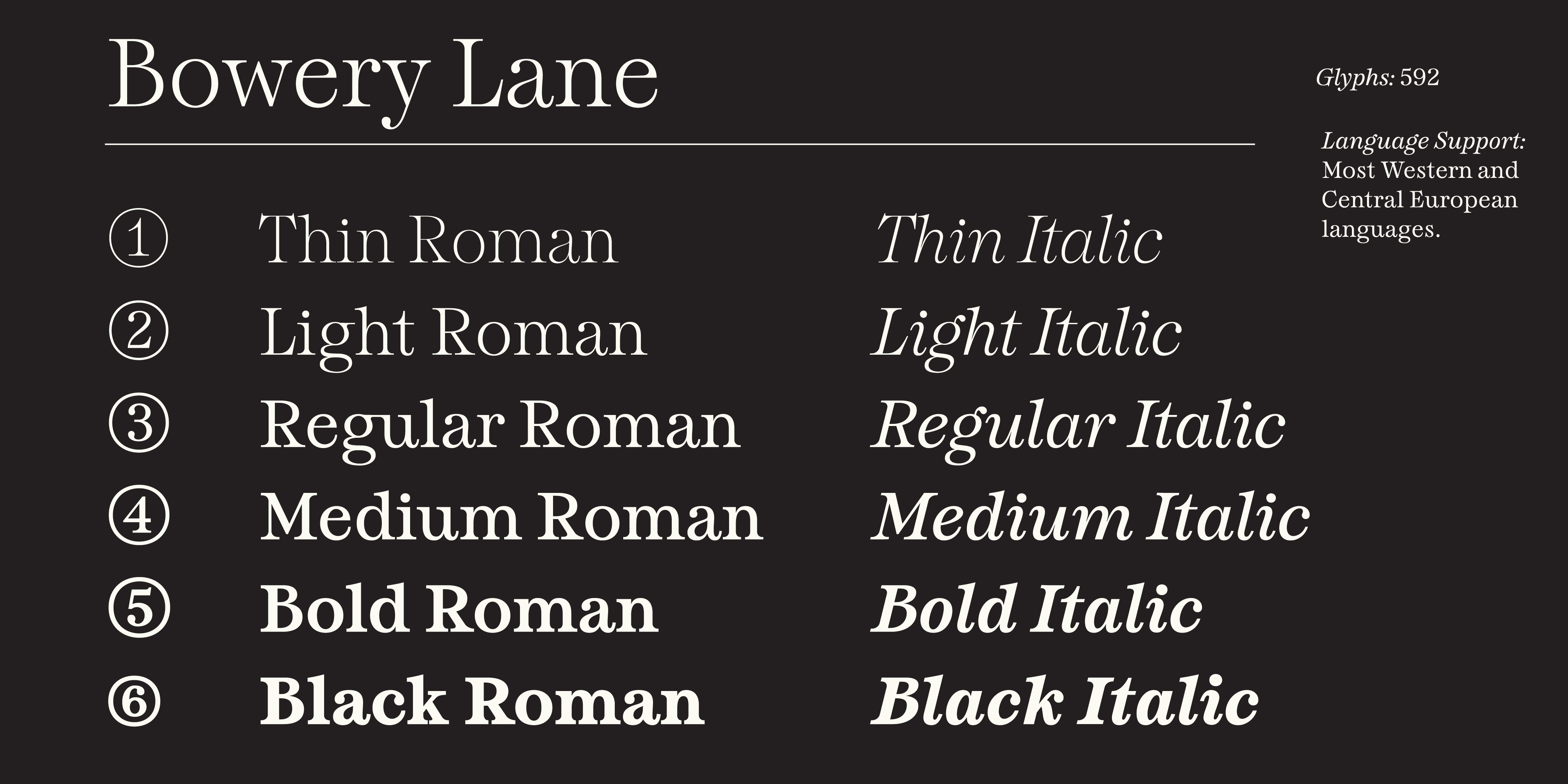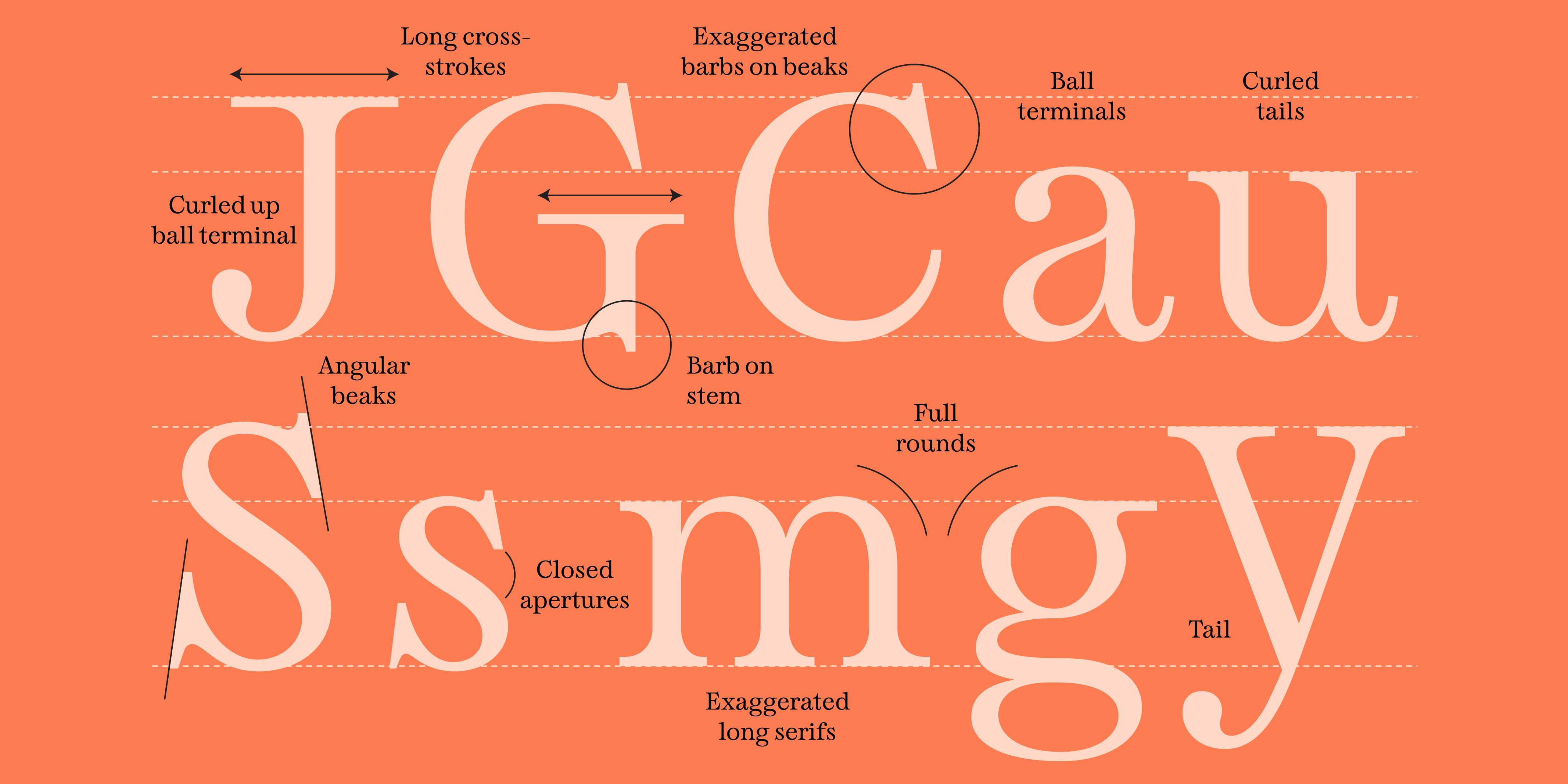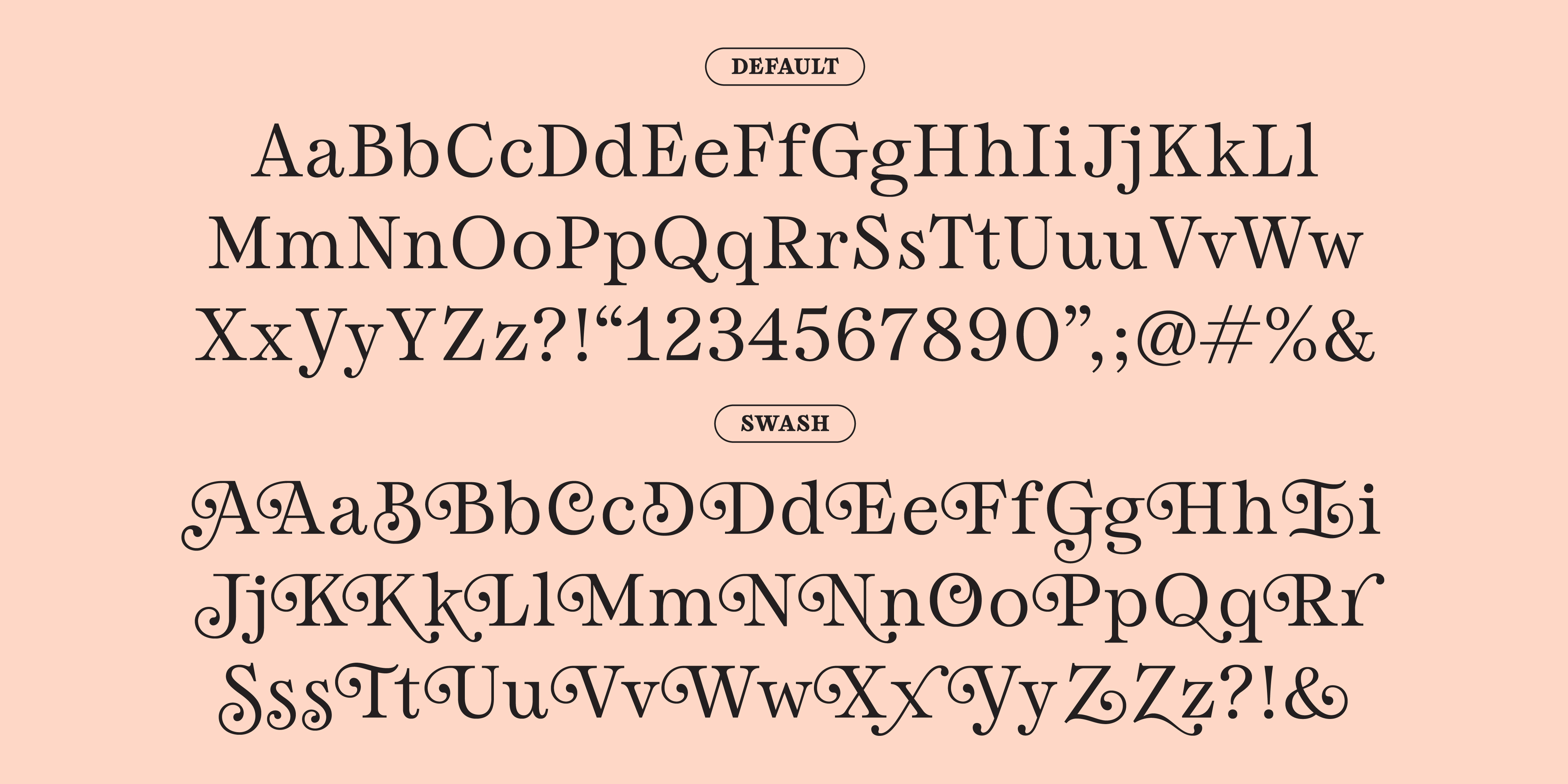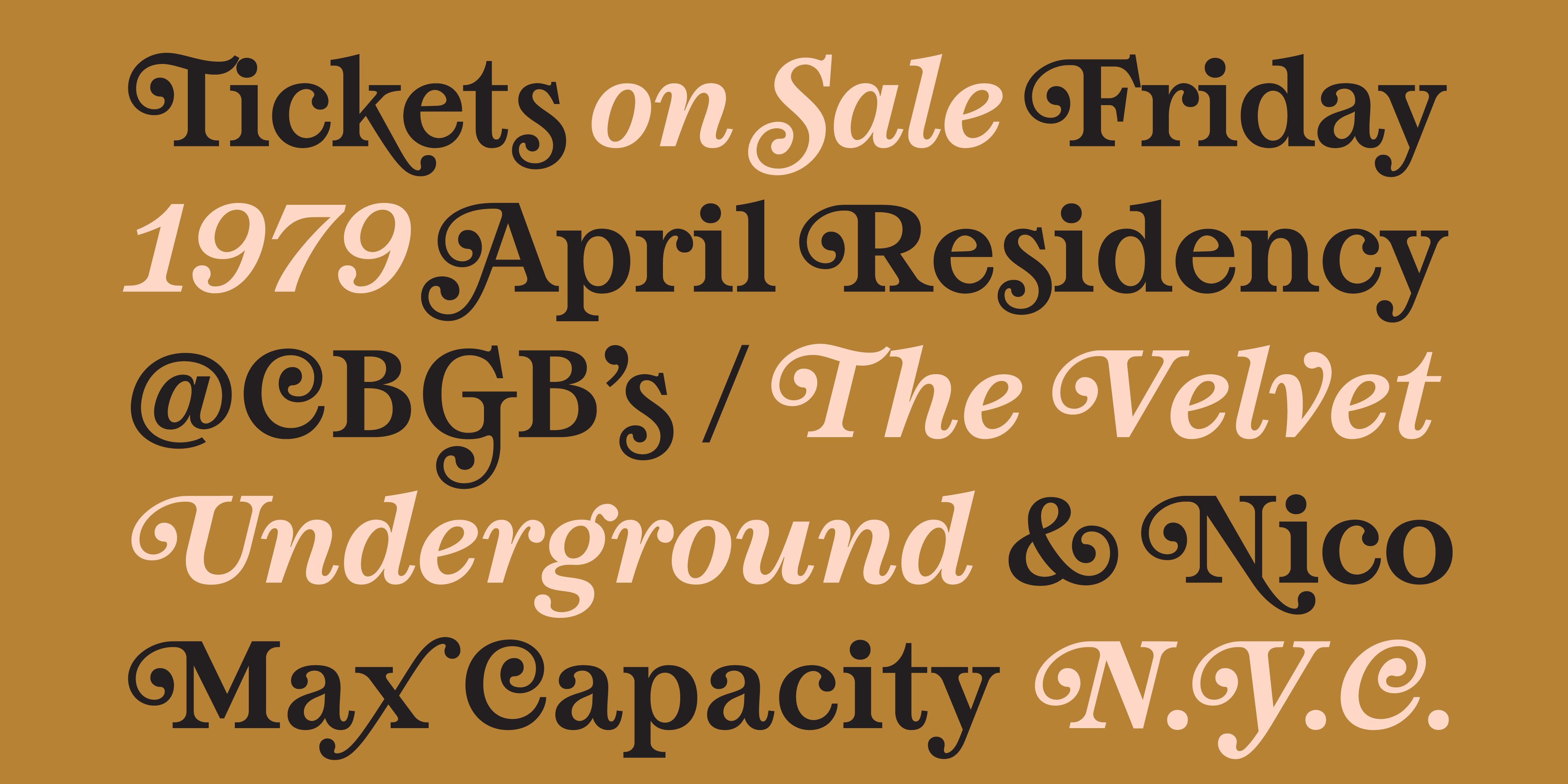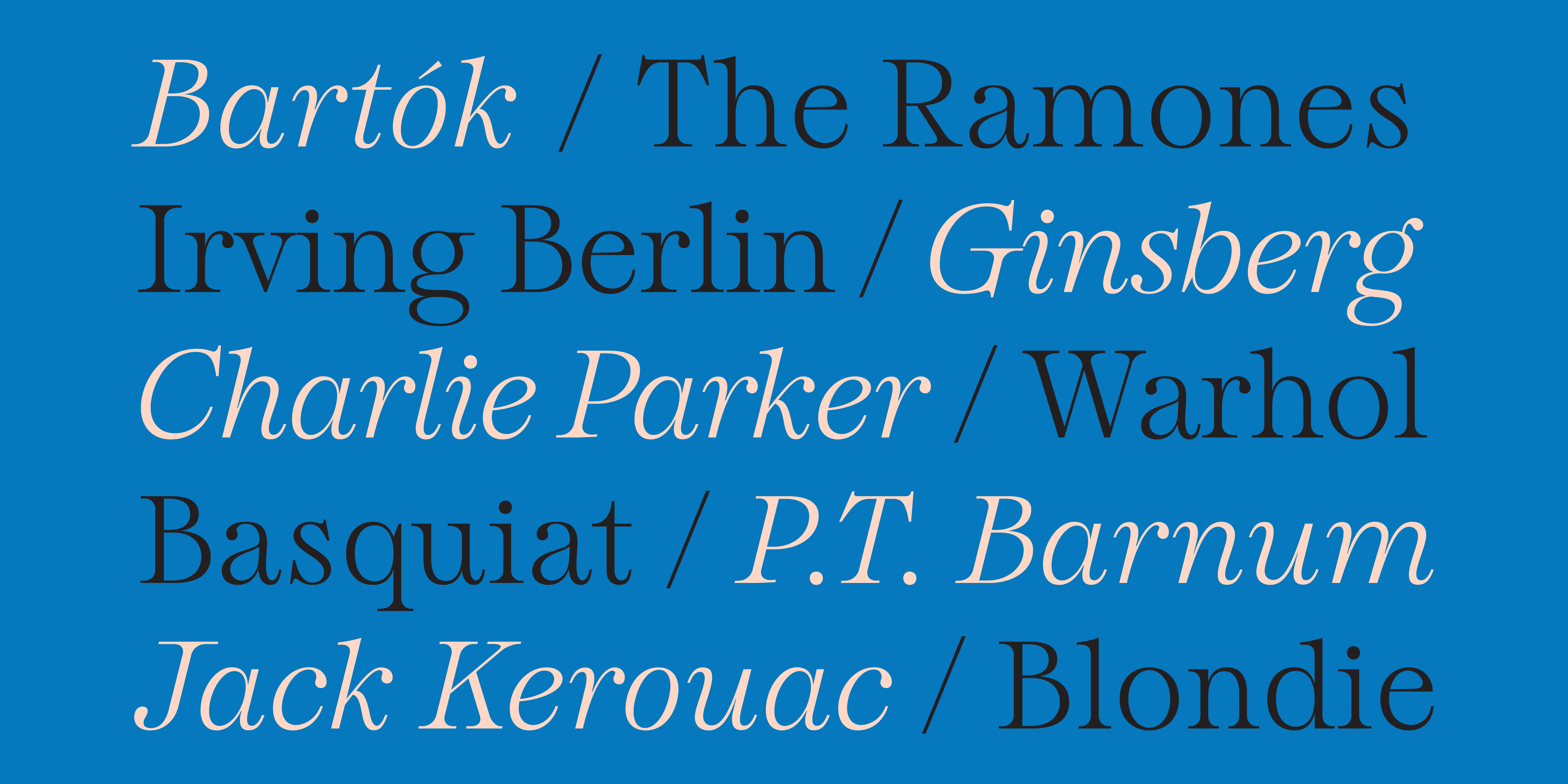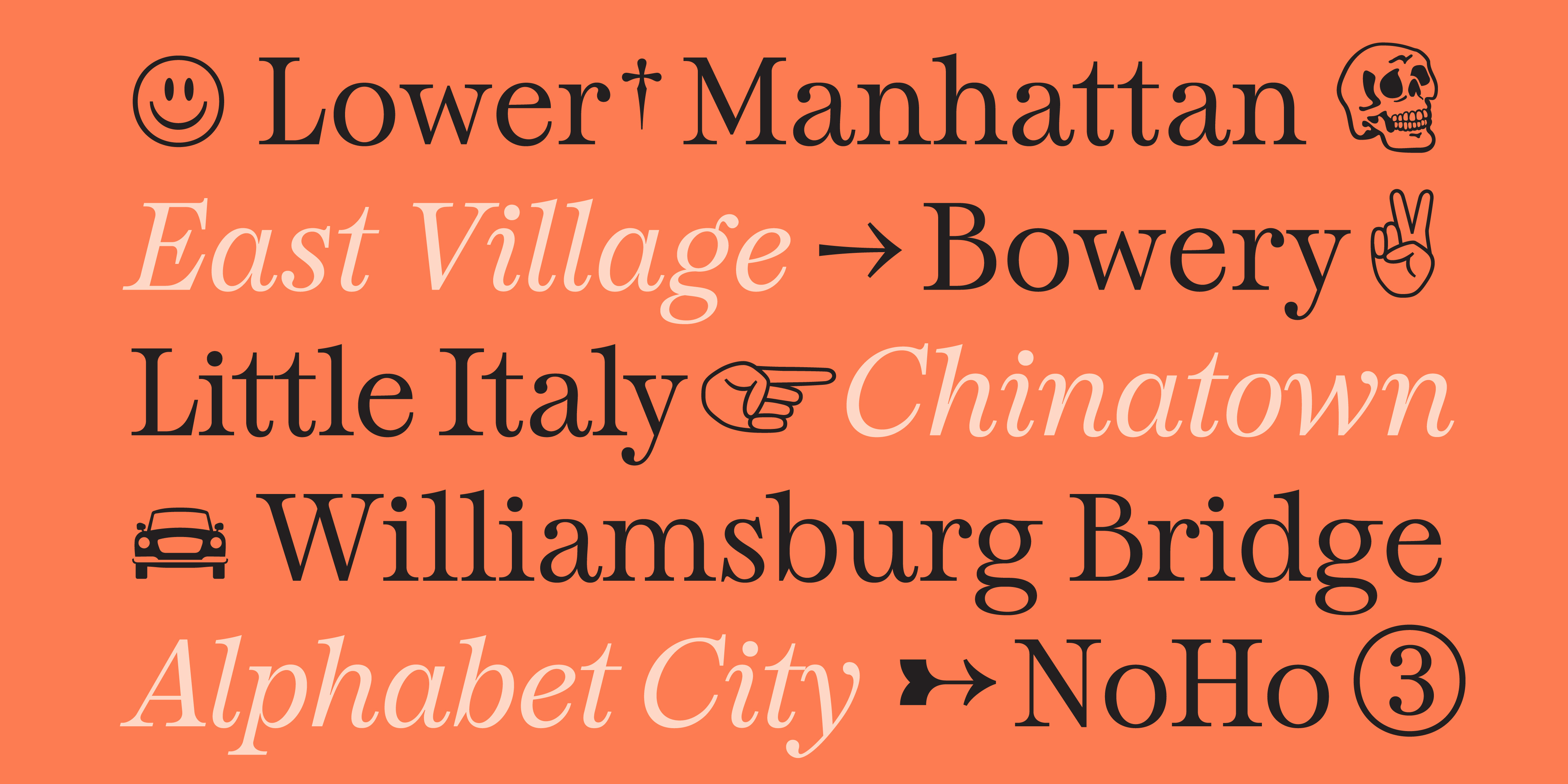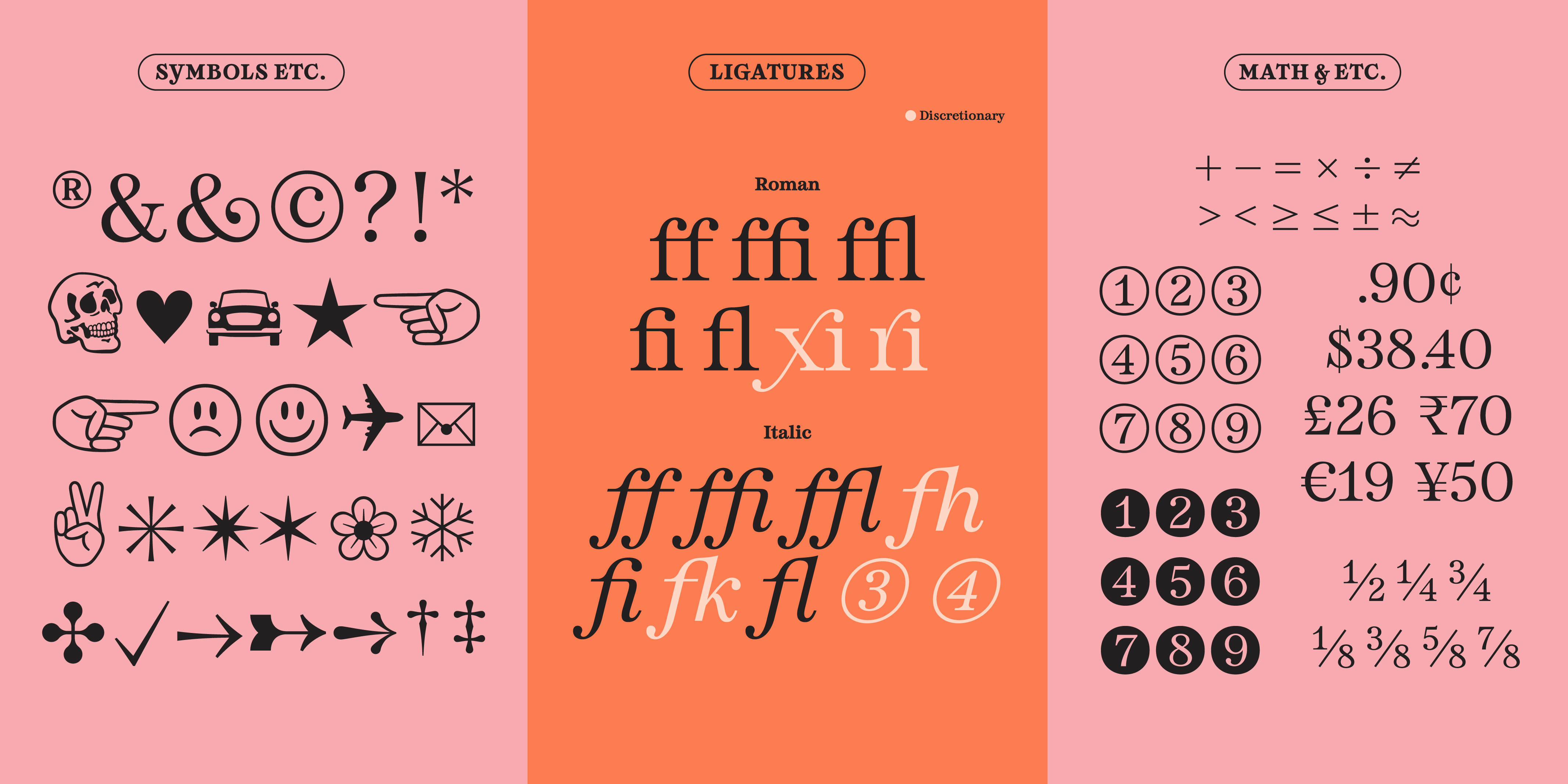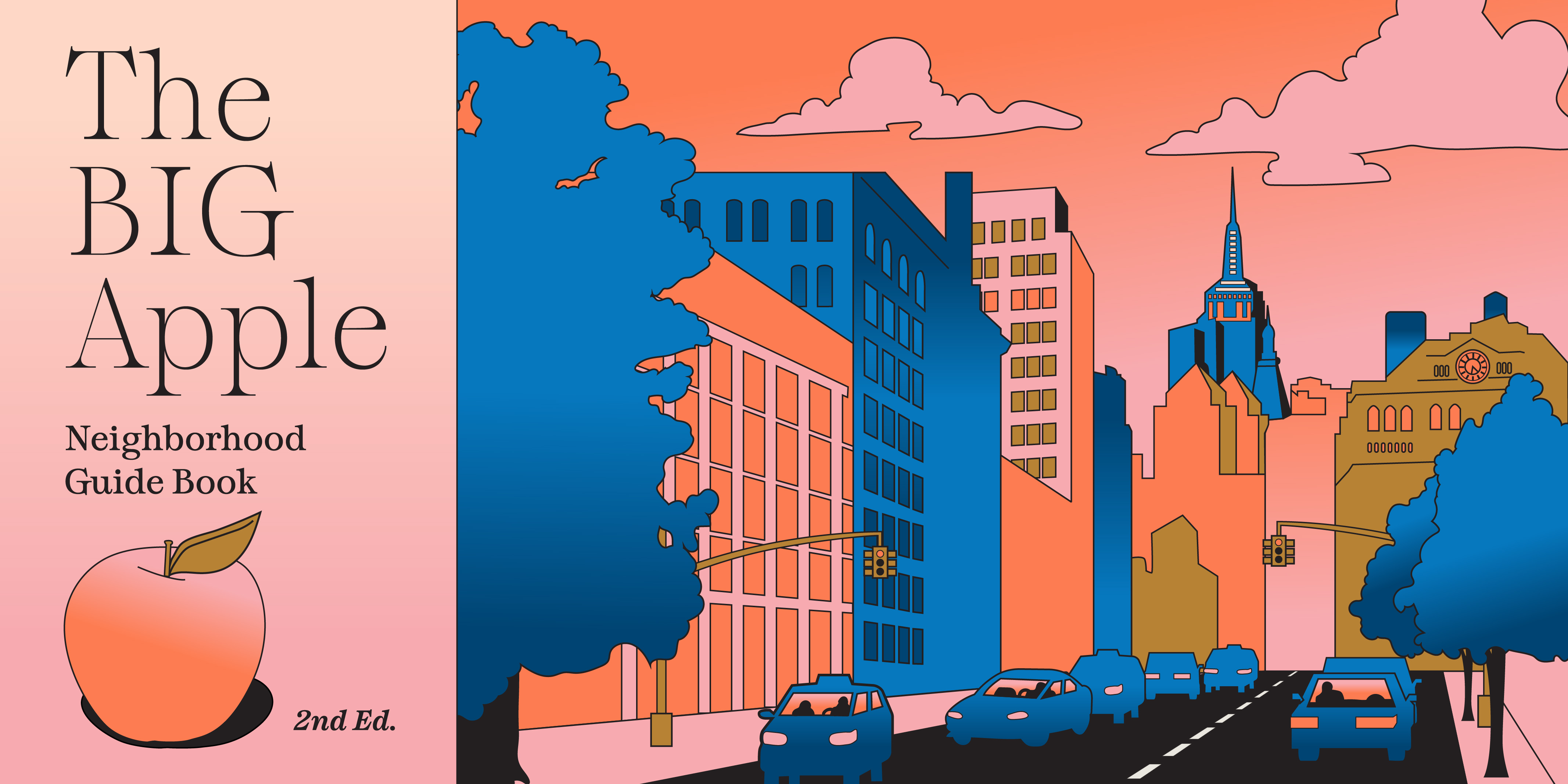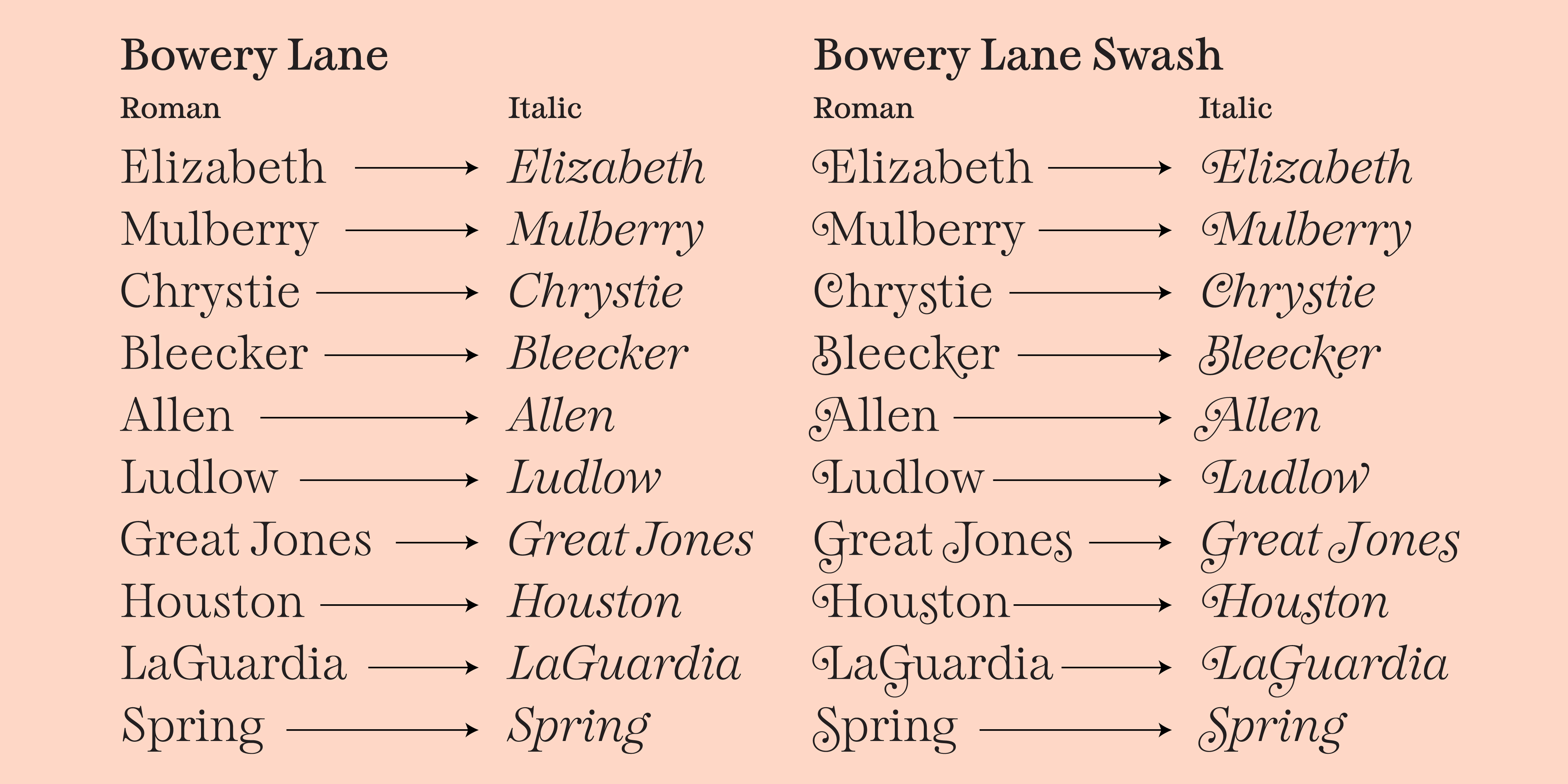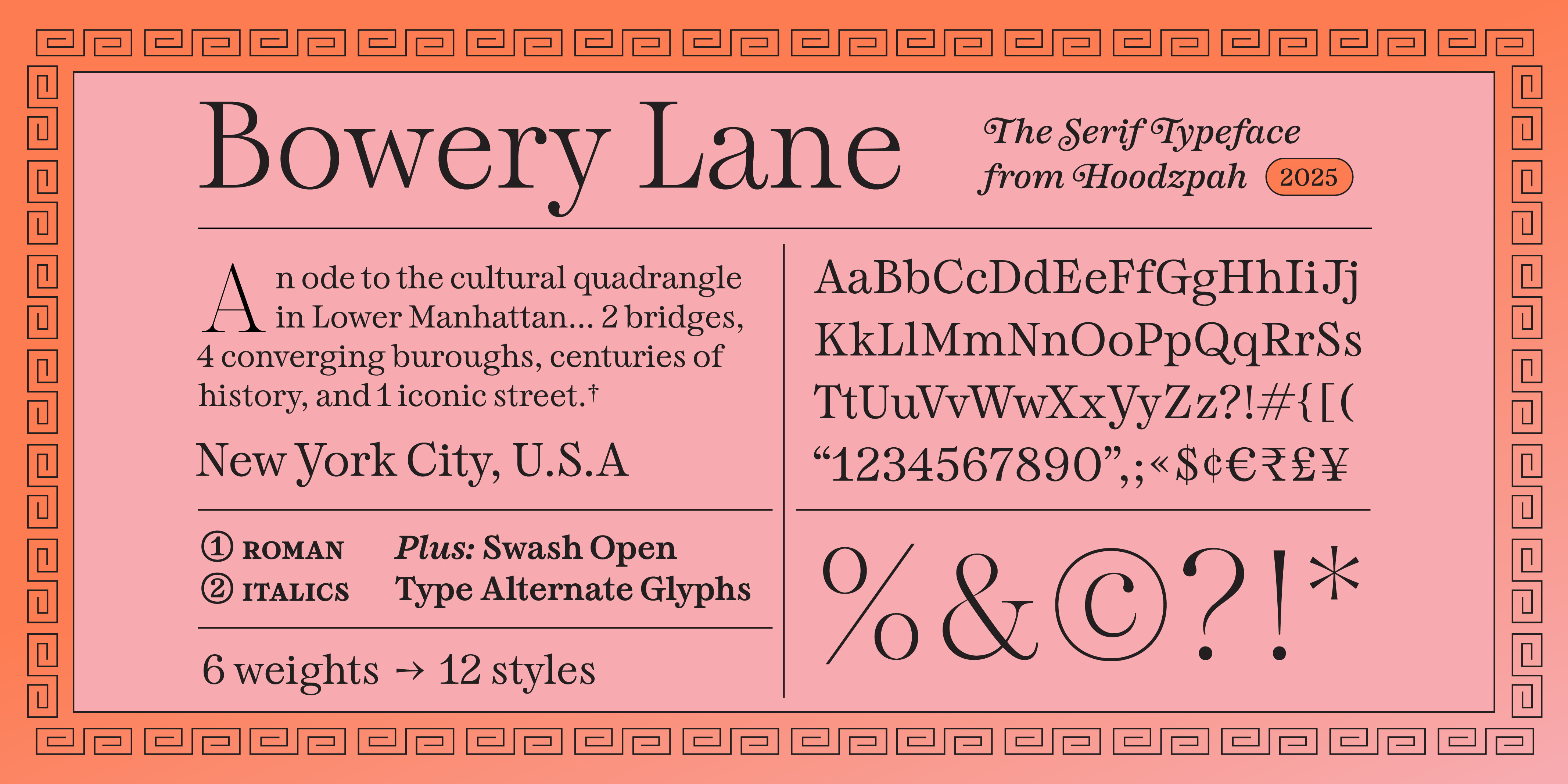
Bowery Lane
Bowery Lane is an elegant, lower contrast, exaggerated serif font. Like if Clarendon and Georgia had a love child. Something unique but highly usable.
When you use the default character set of Bowery Lane font, it looks confident, classic, and bold, like the area of New York City the font gets its name from. The moderate contrast makes the font very usable, even at smaller sizes. Turn on the curl swash alternates and feel as if you’ve stepped into the New York of You’ve Got Mail.